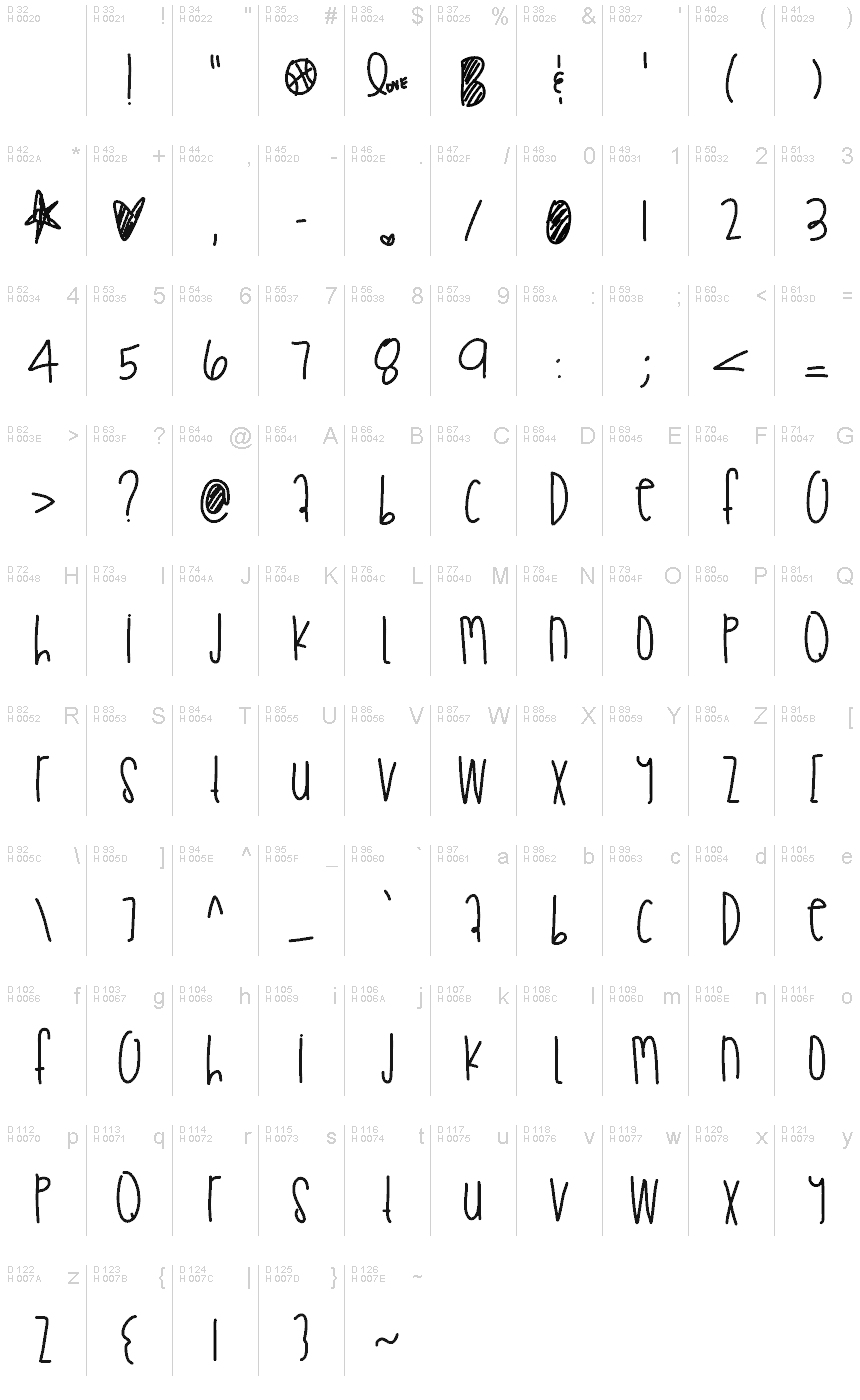
PraduhhTheGreat
Praduhh the Great is a captivating handwritten font that commands attention. Its whimsical, almost playful strokes exude a sense of effortless elegance, making it a standout choice for projects seeking a touch of personality and flair.
Designed by the talented Des Gomez, this font's defining feature is its light and condensed appearance, which lends it a distinctive charm. Praduhh the Great's versatility shines through, seamlessly adapting to a wide range of design applications, from eye-catching headlines to inviting labels and delightful branding.
Whether used in print media, digital interfaces, or personal stationery, this font's unique character is sure to elevate any project, adding a touch of the extraordinary to the ordinary.
Designed by the talented Des Gomez, this font's defining feature is its light and condensed appearance, which lends it a distinctive charm. Praduhh the Great's versatility shines through, seamlessly adapting to a wide range of design applications, from eye-catching headlines to inviting labels and delightful branding.
Whether used in print media, digital interfaces, or personal stationery, this font's unique character is sure to elevate any project, adding a touch of the extraordinary to the ordinary.